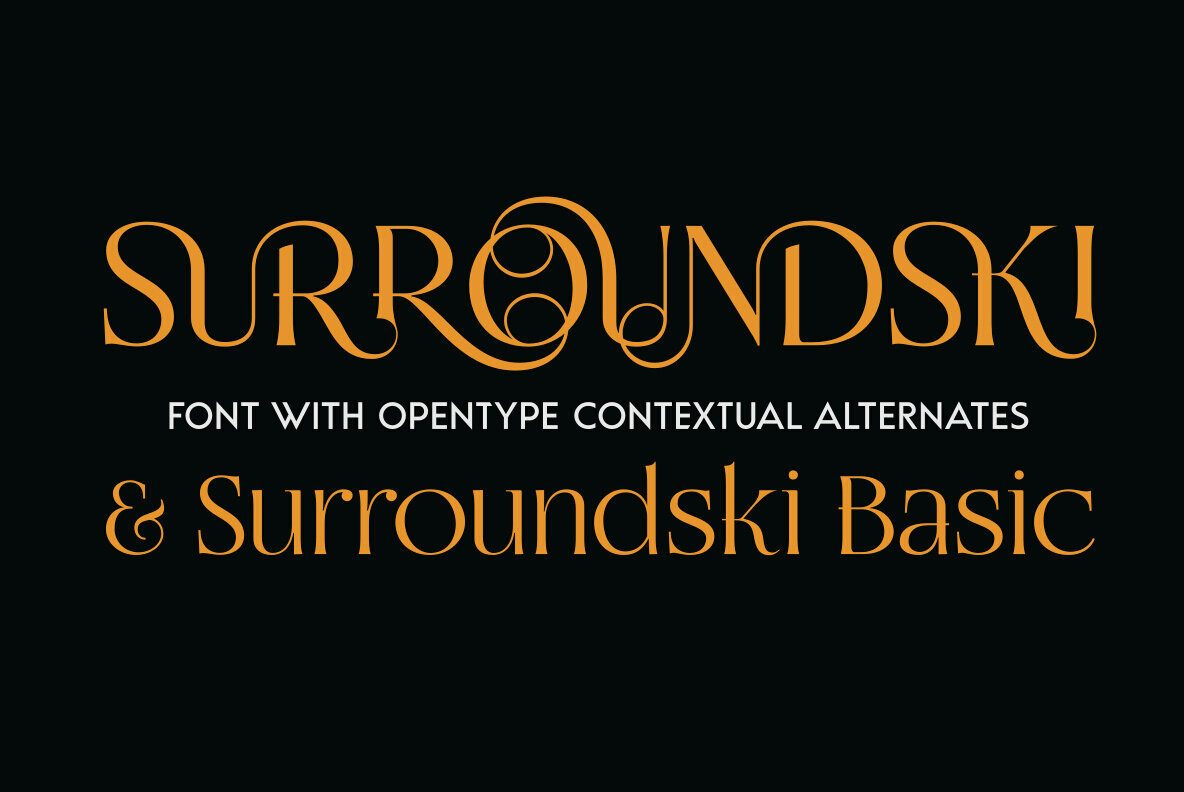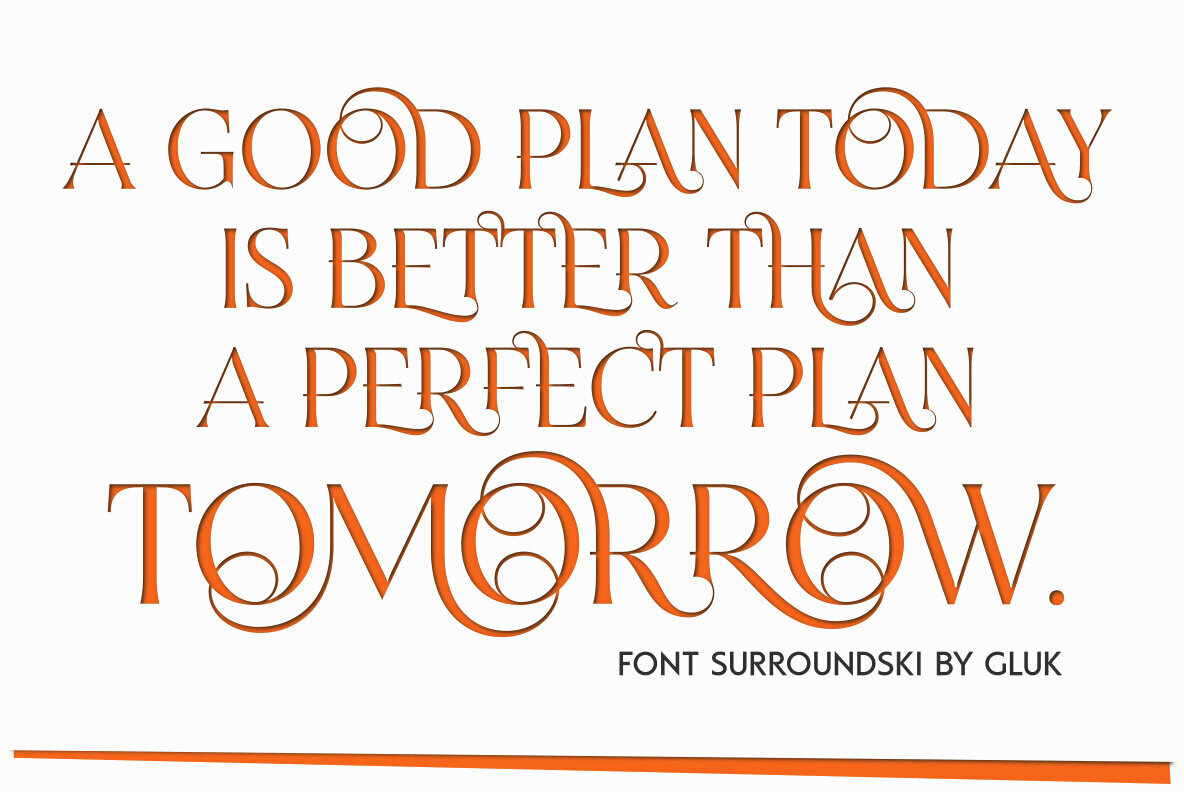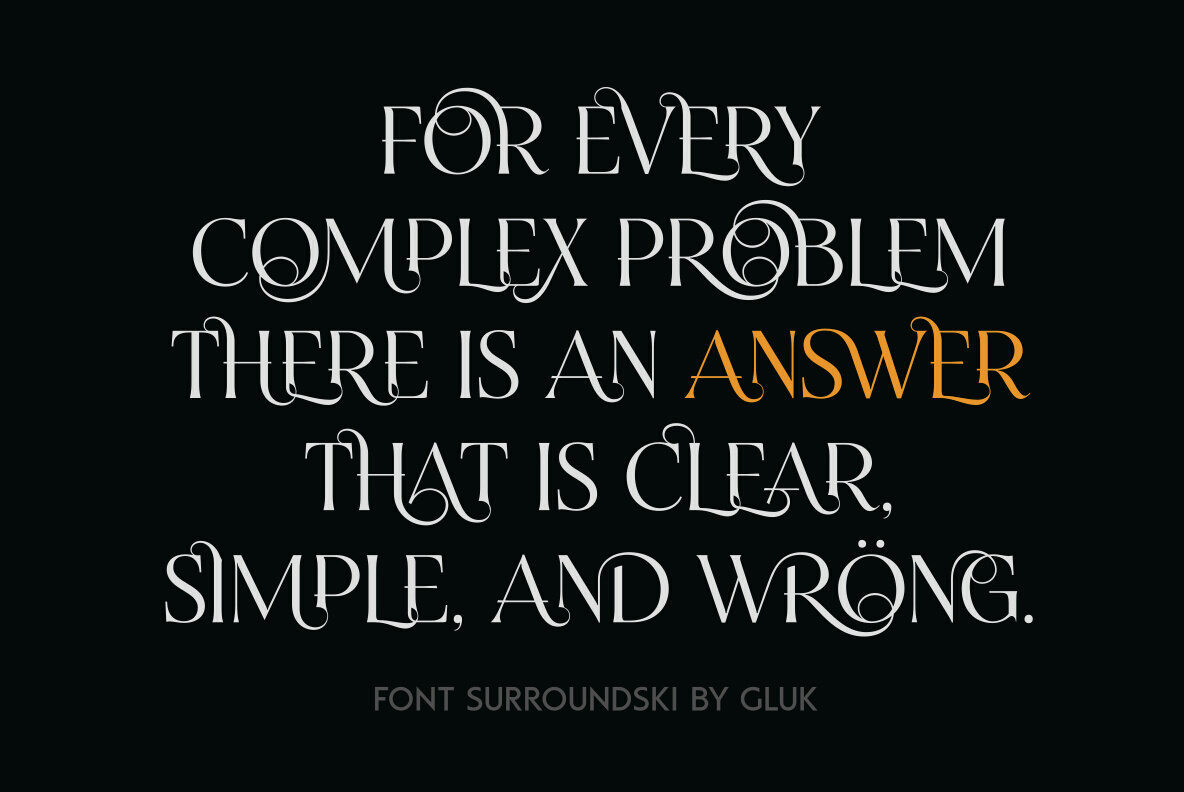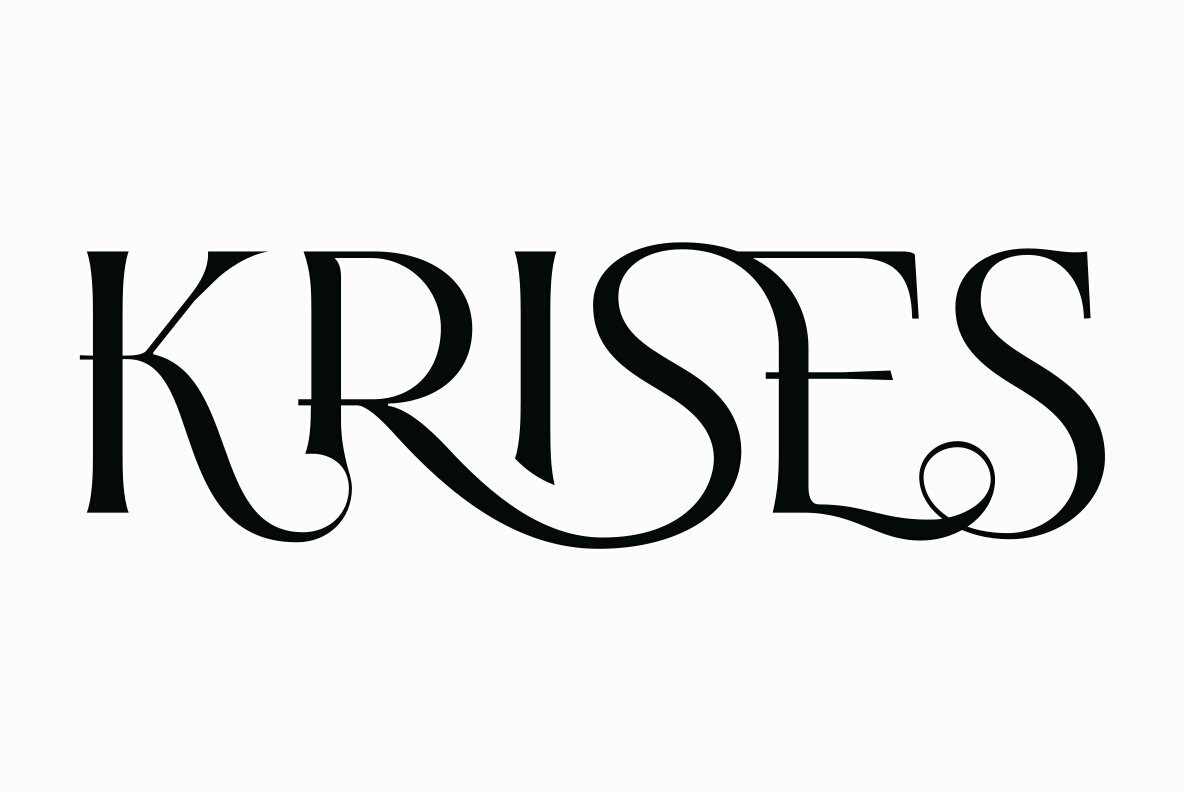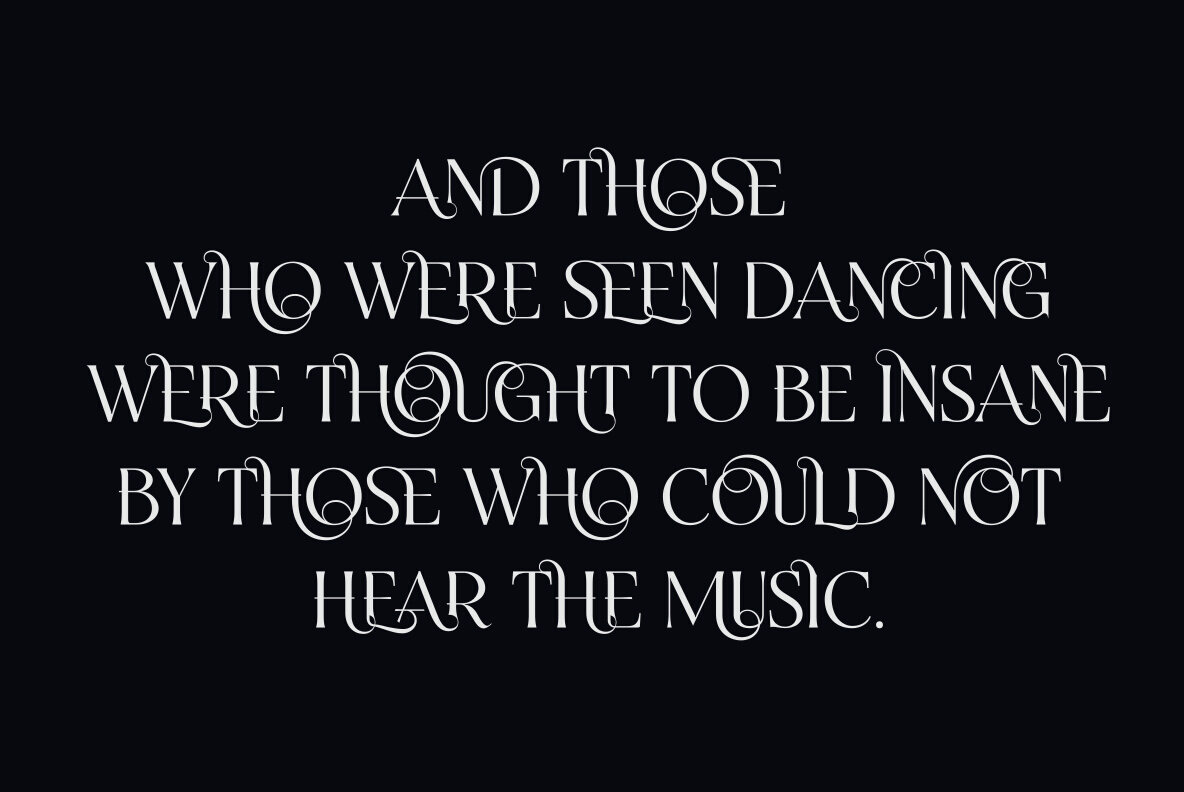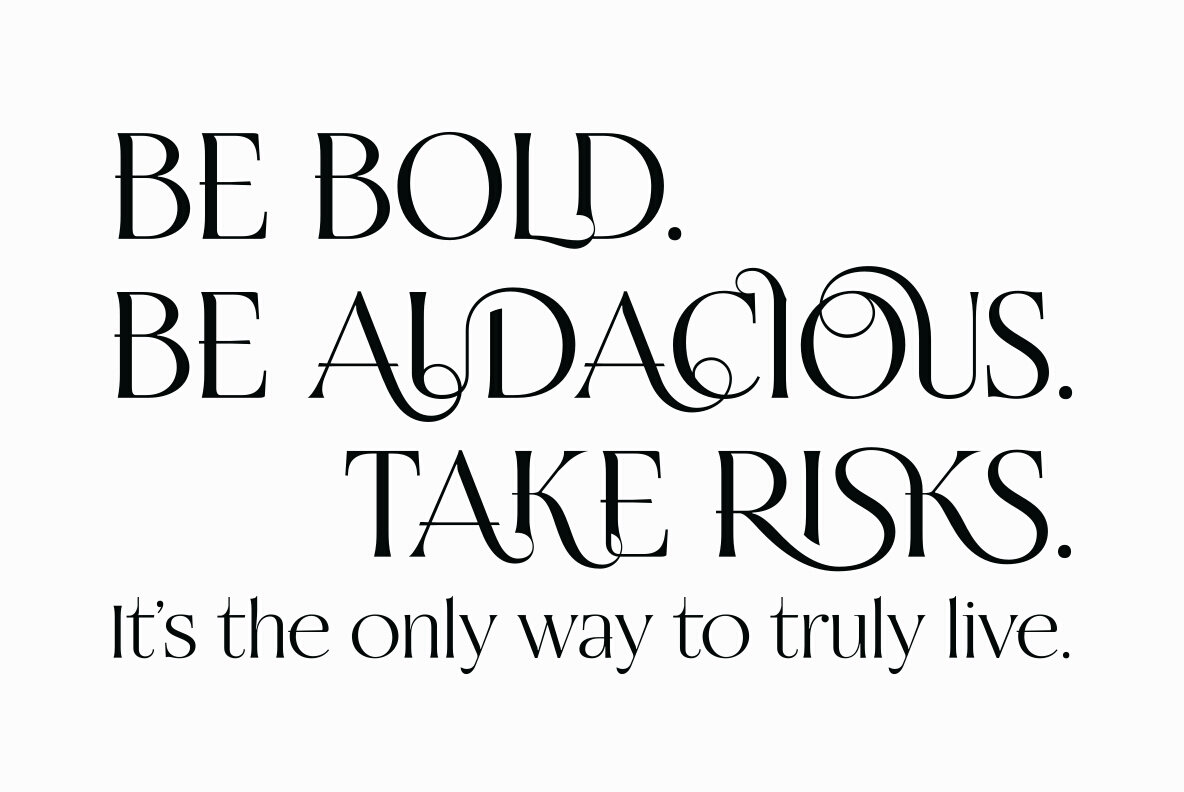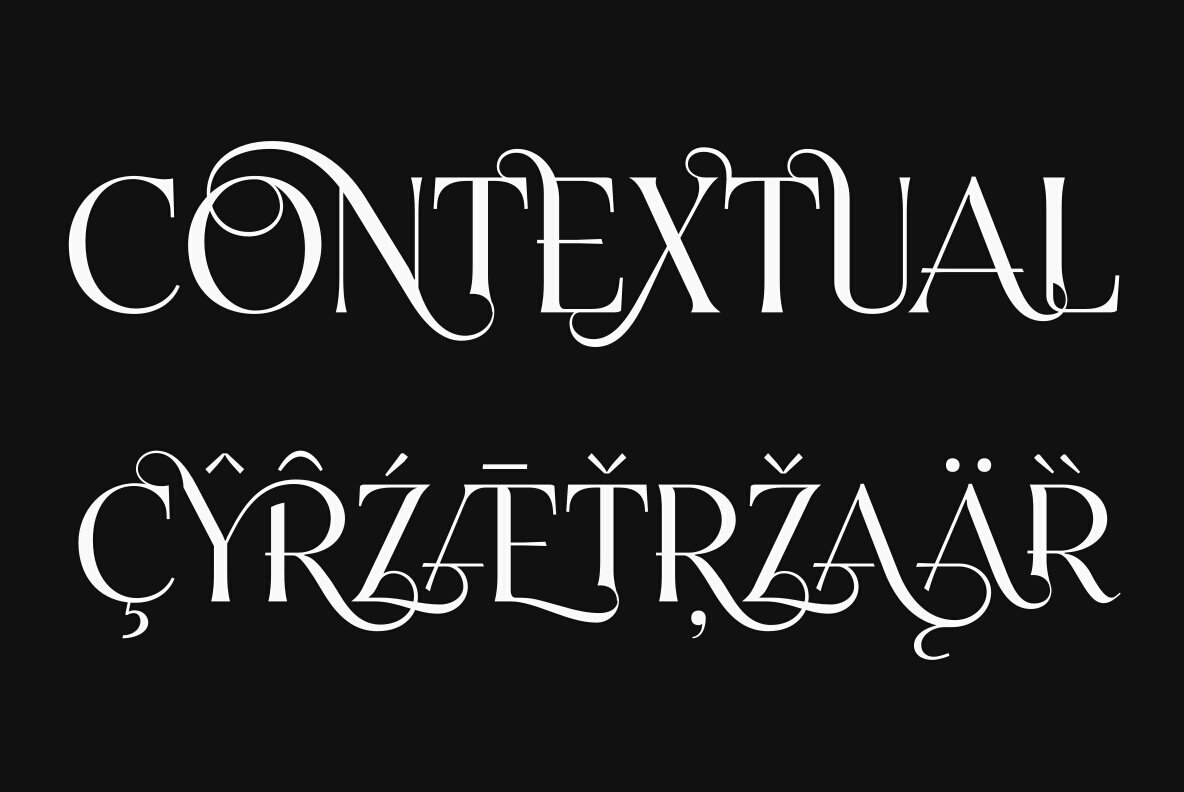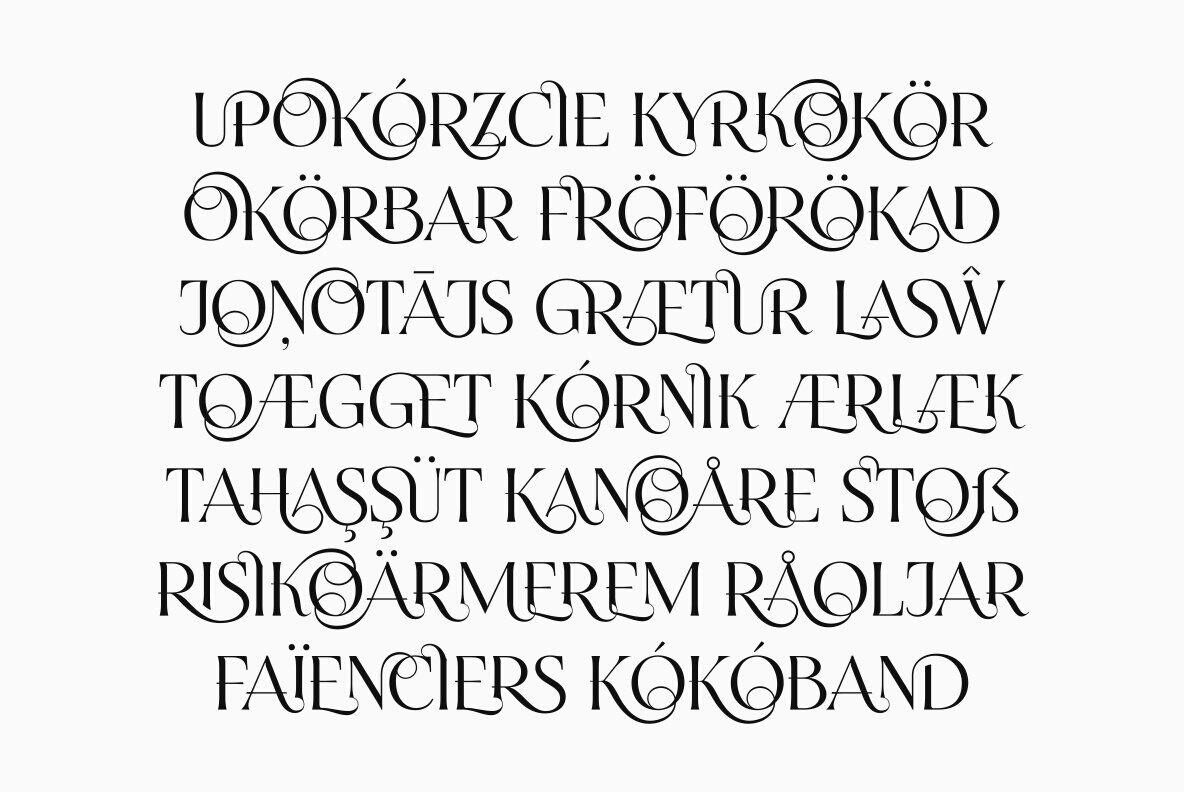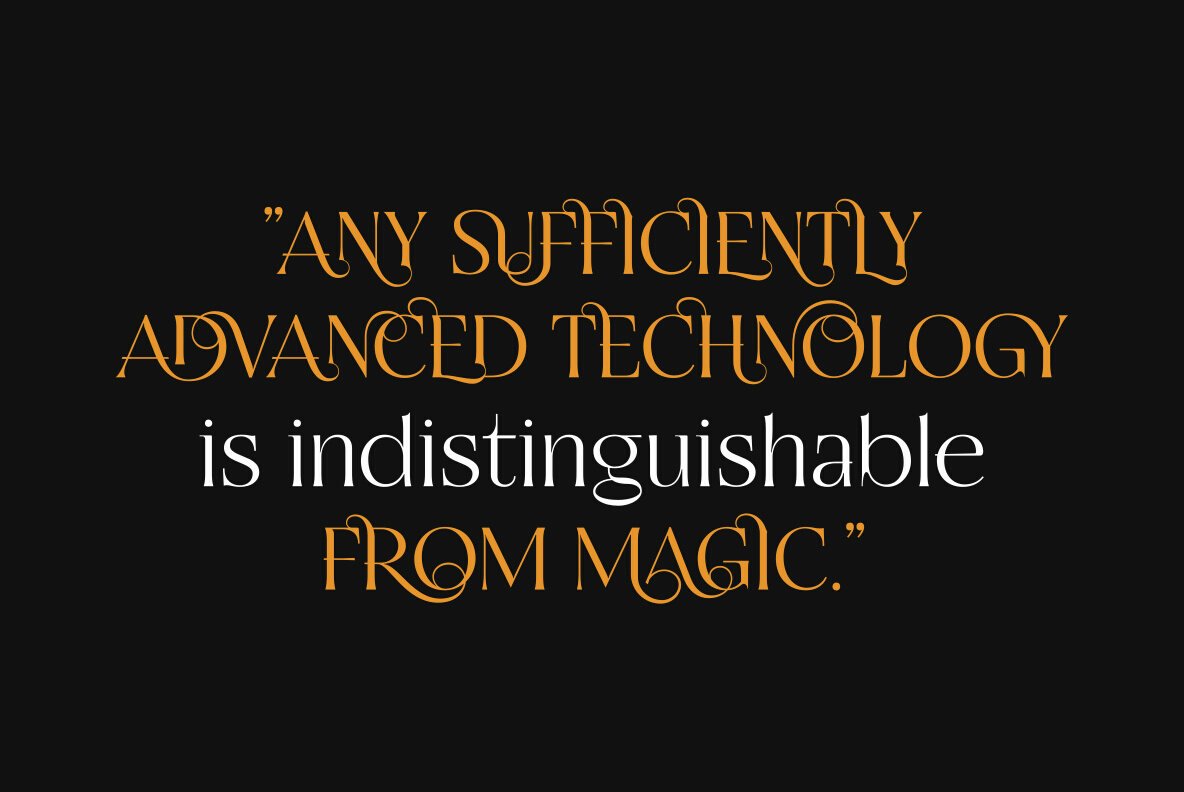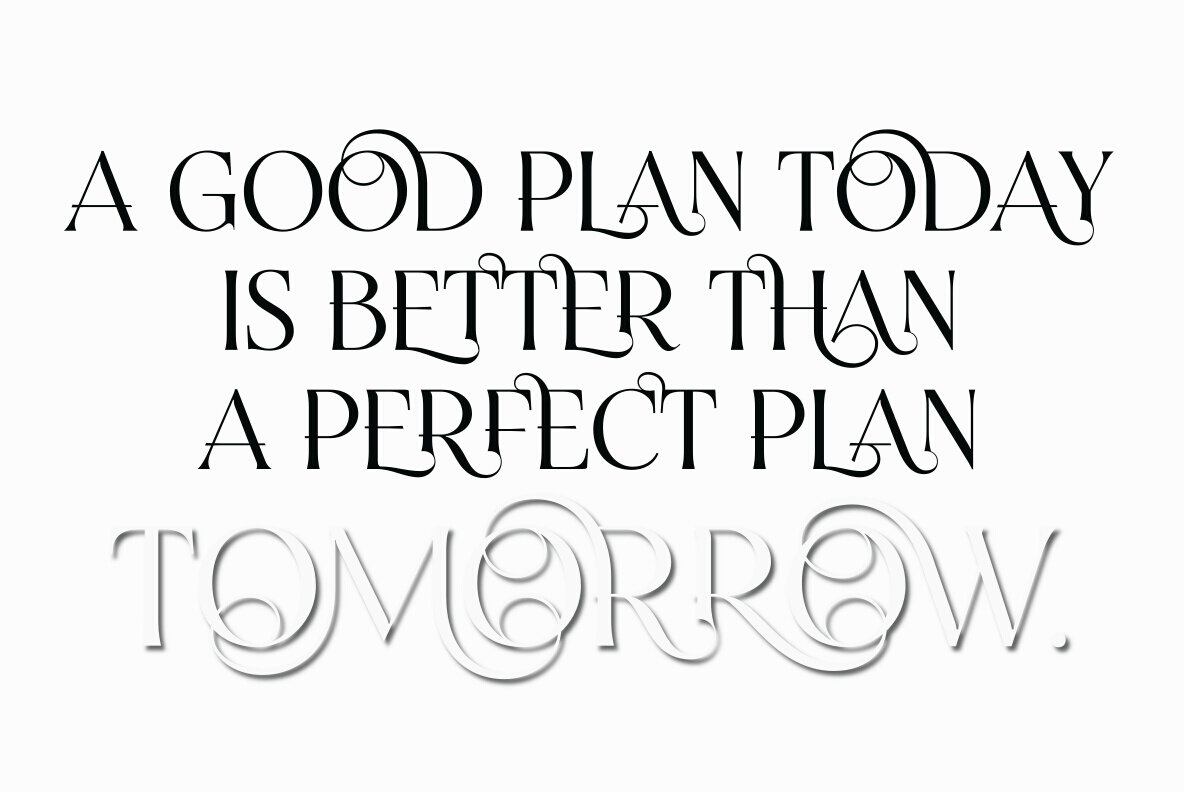
Surroundski Font
Surroundski
Surroundski captivates the eye with its decorative, semi-serif design and striking contrast. It offers a unique all-caps style, incorporating multilingual characters and contextual alternates that dynamically adjust glyphs for optimal text flow. Accompanying Surroundski is Surroundski Basic, a complimentary typeface exuding a classic touch. This variant is perfectly suited for headlines, short text, logos, packaging, and advertising materials.Surroundski: High-Contrast Semi-Serif Typeface